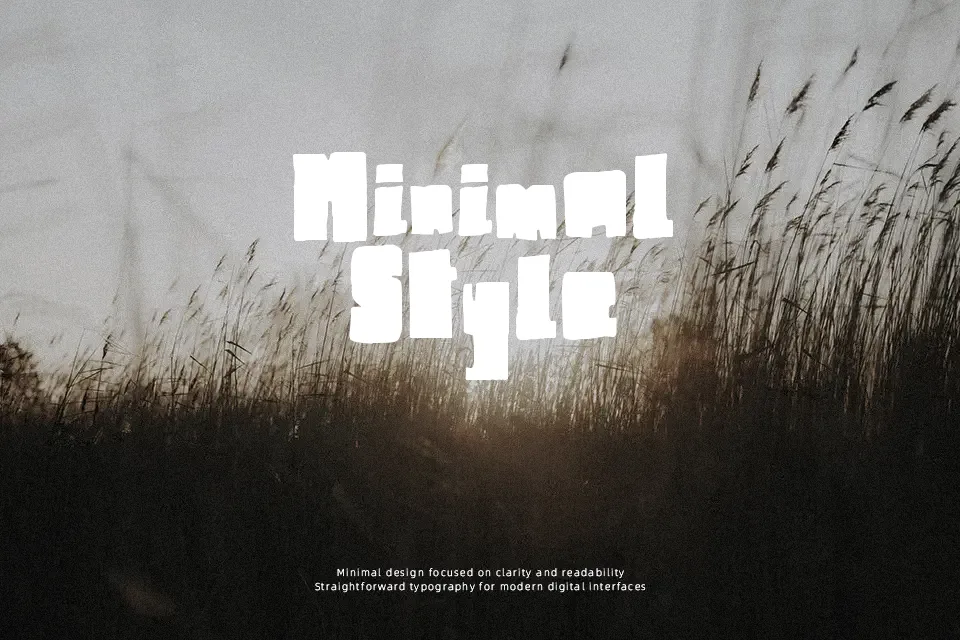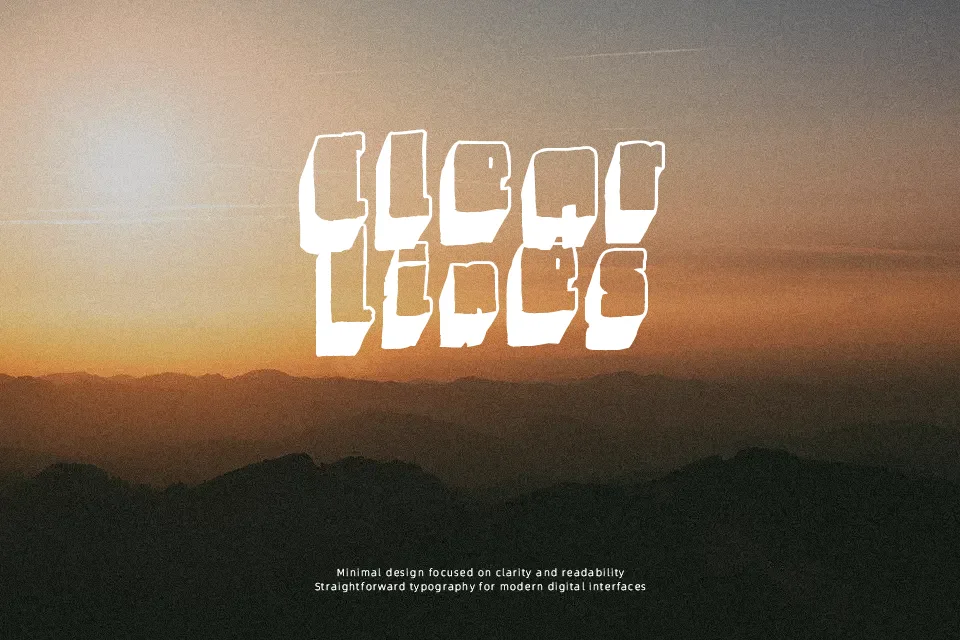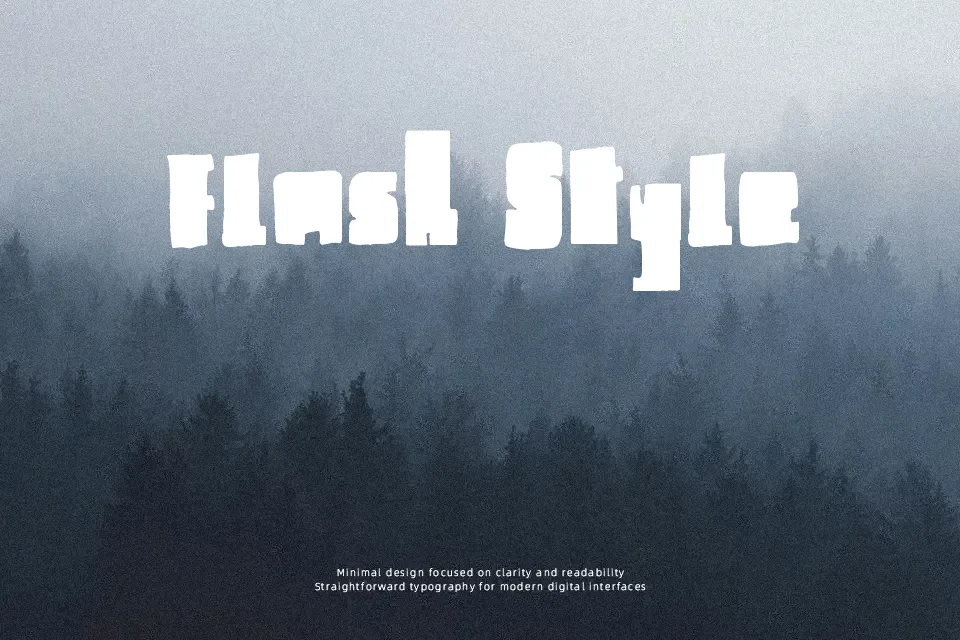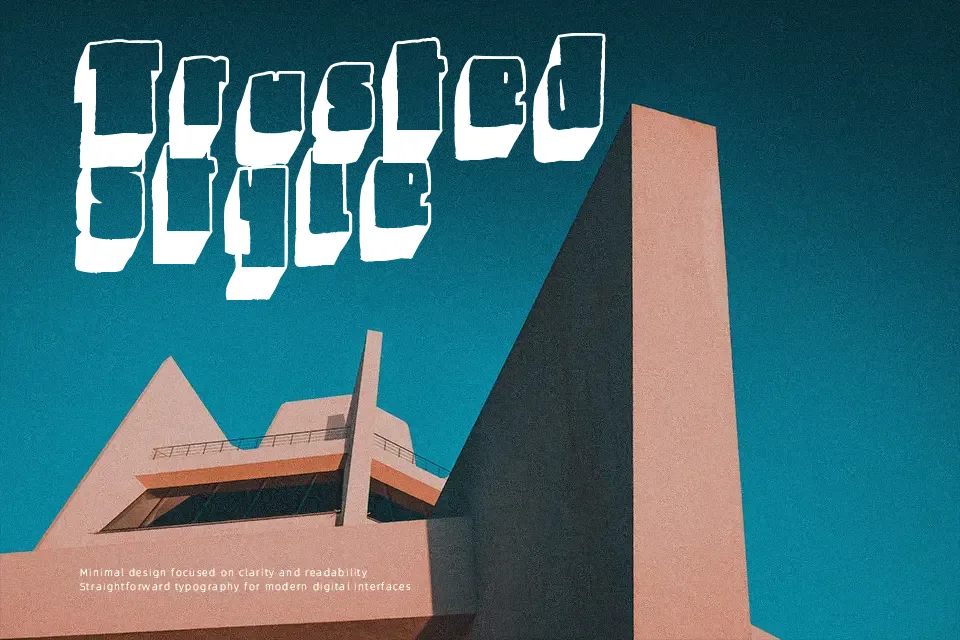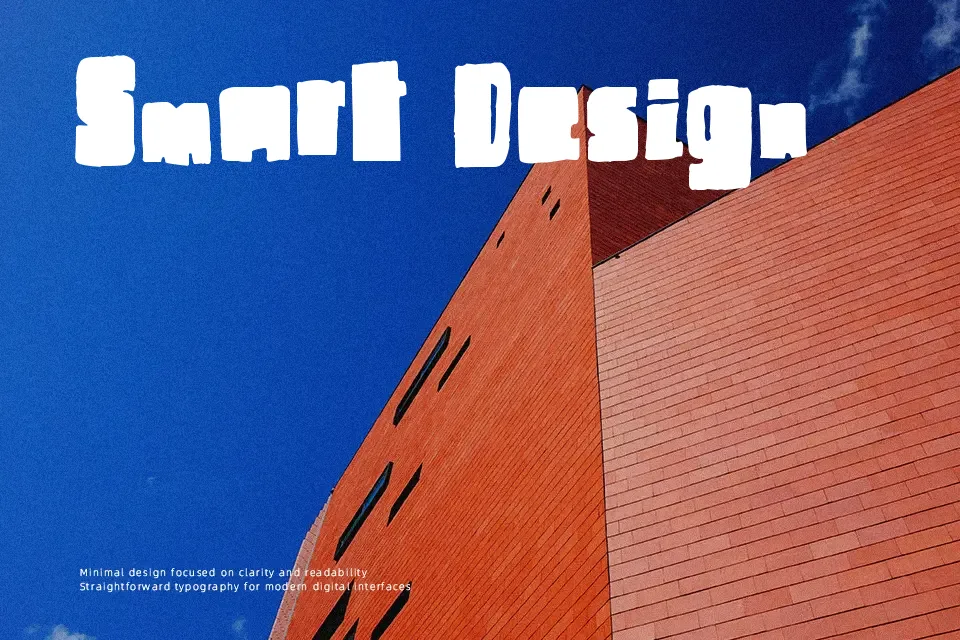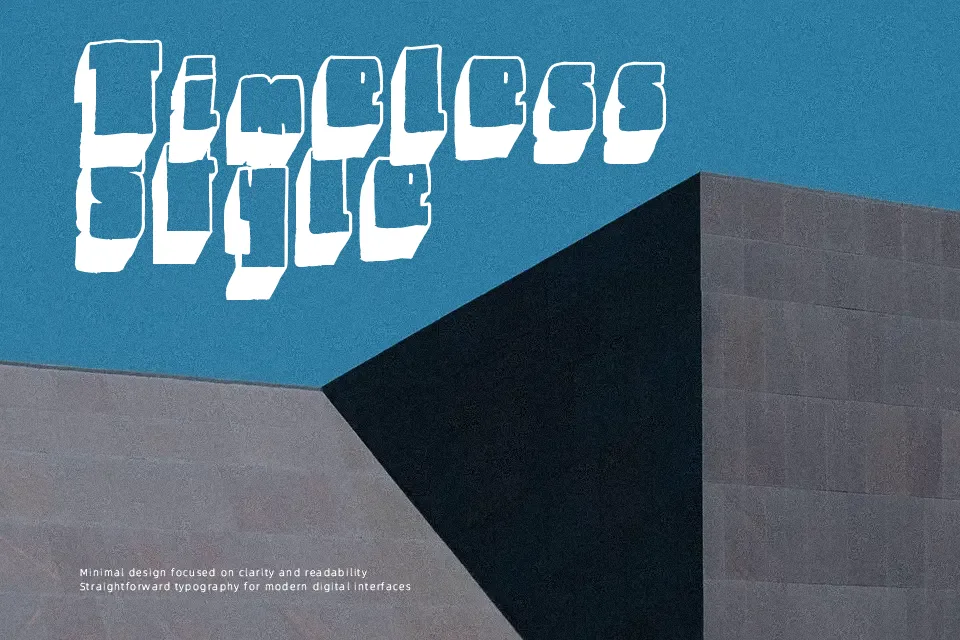
Blck Font
Designed by imagex
Blck Font sits in DaFont’s Fancy/Various area and comes as a two-file release, which reads more like a display-focused font than a full text family. The naming and stripped-back presentation suggest compact, stylized letterforms with a graphic tone, so I would keep it for music flyers, poster titles, streetwear branding, or rough logo comps where personality matters more than reading comfort. It starts to lose value in body copy, interface labels, or formal editorial pages, because a novelty-led design usually needs space and scale to feel intentional. If you need a short burst of attitude, it makes sense; if you need steady readability, I would look elsewhere.
poster titles,logo drafts,music flyers,streetwear branding
body text,ui labels,small captions,formal editorial layouts
Perfect for 3d, branding, and headline, with a bold and decorative style.